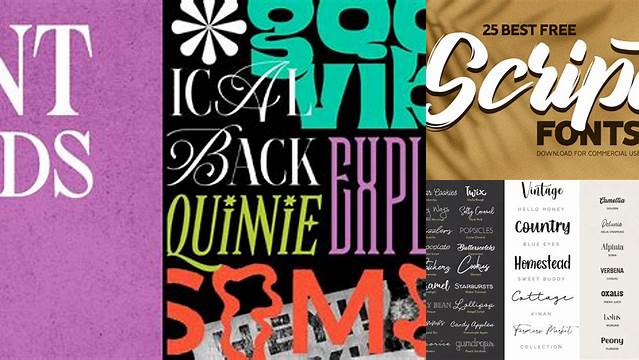
Top Free Fonts To Download In 2026
Alright, font fanatics and design dynamos, get ready! We're diving headfirst into the world of typography and exploring the best font 2026 free download options that will be gracing screens and pages in the coming year. Finding the right font is like finding the perfect outfit – it can completely transform your look! Whether you're a seasoned designer, a budding blogger, or just someone who loves a good typeface, this guide will be your ultimate resource for all things font-related. We'll explore a diverse range of fonts, from sleek modern sans-serifs to elegant vintage serifs, ensuring you have the perfect tool for every project. So, grab your favorite beverage, settle in, and let's embark on this typographic adventure together. The best font 2026 free download landscape is constantly evolving, with new and exciting fonts emerging all the time. This guide will be your compass, helping you navigate the ever-changing world of fonts and find the perfect ones to elevate your designs. We'll also discuss the importance of licensing, font pairing, and how to stay ahead of the curve in the world of typography. Because let's be real, a well-chosen font can make or break a design, and we want to make sure you're always on top of your game. So, let's get started and discover the fonts that will be making waves in 2026!
H2: Unleashing the Power of Sans-Serif Fonts in 2026
Alright, guys, let's kick things off with the unsung heroes of the font world: sans-serif fonts. These guys are the workhorses of the typography world, known for their clean lines and versatility. For best font 2026 free download options, expect them to dominate the digital space. They are the perfect choice for everything from websites and apps to presentations and reports. Their readability and modern aesthetic make them incredibly popular in the digital realm, and we can expect to see even more innovative designs cropping up in 2026. When considering a best font 2026 free download for a sans-serif, think about the overall mood you want to convey. Do you want something sleek and minimalist, or something more playful and approachable? Some popular sans-serif styles to watch out for include geometric fonts with their precise shapes, humanist fonts that are a bit more organic and friendly, and grotesque fonts that have a slightly bolder and more industrial feel. Keep your eye out for fonts that offer a wide range of weights and styles, as this will give you maximum flexibility in your designs. Consider exploring the newest variations of popular fonts. Several established foundries may also release new weights or expanded character sets. This means existing fonts may see a resurgence in popularity as they cater to the evolving needs of designers. Remember that the best sans-serif fonts are those that are both visually appealing and functional, ensuring your message is delivered clearly and effectively. Remember that font pairing is also essential. The ability to pair sans-serif fonts with other typefaces is going to be another trend. You can also use these fonts for headlines, subheadings, and body text. The best sans-serif fonts can also be paired with serif fonts for a dynamic and visually interesting design. Be sure to explore different combinations and see what works best for your specific needs.
H3: Exploring Modern Sans-Serif Font Trends
Let's dive deeper, shall we? Modern sans-serif fonts are all about clean lines, geometric shapes, and a touch of sophistication. For best font 2026 free download options, modern sans-serifs are expected to continue their reign in the design world. Think about the kind of tech companies that use these fonts – they want to convey a sense of innovation and cutting-edge technology. These fonts are perfect for websites, apps, and branding materials. In 2026, expect to see an even greater emphasis on minimalism and simplicity. Fonts with a high x-height (the height of lowercase letters) will continue to be popular as they improve readability, especially on smaller screens. The trend toward monolinear designs (fonts with consistent stroke weight) will also continue, offering a sleek and modern look. Another key trend is the use of variable fonts. These are single font files that can adapt to different weights, widths, and styles, providing incredible flexibility. Variable fonts allow for seamless transitions between different designs and also offer some performance advantages. Remember that the goal is not only to find beautiful fonts but also to choose those that are highly functional. This means they must be readable on a variety of devices and screen sizes. This means that designers who are looking for the best font 2026 free download options will seek typefaces that are adaptable to a wide range of applications. Many font foundries are also experimenting with different weights and styles, such as italics and bold versions. This increases the flexibility and design capabilities of the font. When choosing a modern sans-serif font, keep the project's overall tone and audience in mind. A font that is perfect for a tech startup may not be suitable for a wedding invitation. Pay attention to the kerning (the spacing between letters) and the overall proportions of the font. These factors can greatly affect readability. Embrace these trends, and you'll be well on your way to creating stunning and effective designs.
H2: Unveiling the Charm of Serif Fonts for 2026
Alright, let's talk about the timeless elegance of serif fonts. These fonts, with their little flourishes at the ends of strokes, bring a touch of sophistication and classic charm to any design. When searching for the best font 2026 free download, you will definitely want to include some serif options. Serif fonts are especially popular for print materials, long-form content, and branding that needs a touch of traditional elegance. Serif fonts add a sense of authority and trustworthiness. If you're looking to create a sense of heritage or prestige, a serif font is your go-to choice. For 2026, we can expect to see both classic and modern takes on serif fonts. The classic serifs, like Times New Roman and Garamond, will continue to be used for their readability and timeless appeal, especially in longer blocks of text. However, keep an eye out for updated versions of these classics with improved readability and modern touches. There will also be a surge of modern serifs, with clean lines and subtle serifs that offer a contemporary twist. These fonts blend the traditional feel of serifs with a modern aesthetic. These newer serifs are great for both headlines and body text. They add a sophisticated feel without being overly formal. The best serif fonts provide a balance of readability and elegance. Look for fonts that are optimized for both print and digital use, as this is going to be more crucial. The goal is always to ensure the font is easily readable on a variety of devices. Consider the x-height, the stroke weight, and the overall spacing of the letters. These factors can greatly affect readability. When choosing a serif font, think about how it complements the other design elements. Does it work well with the images and colors you're using? Does the font convey the right message? Explore different weights and styles to find the perfect fit for your project. These different variations can enhance the appeal of the design. The options for the best font 2026 free download are plentiful. Remember, the goal is to use fonts to elevate your designs and grab the attention of the audience.
H3: The Resurgence of Classic Serif Fonts
Let's dive a little deeper into the world of classic serif fonts. These fonts are the ones that have stood the test of time, appearing in books, magazines, and websites for centuries. For the best font 2026 free download searches, classic serifs are still highly relevant. Their elegant and readable qualities make them ideal for long-form content and branding projects that need a touch of sophistication. Classic serifs have a way of conveying a sense of trust and authority, so they are perfect for academic writing, financial reports, and any project that wants to appear credible. For 2026, expect to see these classic serifs continue to be used, but perhaps with some modern updates. Many foundries are now offering digital versions of these classic fonts with improved kerning and readability, making them more suitable for digital screens. The best part about these classic fonts is that they are often available for free, making them excellent candidates for best font 2026 free download options. Look for well-known serifs like Garamond, Baskerville, and Times New Roman. These fonts have a timeless appeal. Consider the weight, the contrast, and the overall structure of each font. These factors can dramatically affect the look and feel of your design. Classic serifs are also known for their legibility, which is crucial for long blocks of text. They can also create a sophisticated look. When choosing a classic serif, think about your audience and the message you want to communicate. Does the font match your brand's personality? Does it work well with the other design elements? Remember, even classic fonts can be used in innovative and modern ways. Consider pairing them with modern sans-serifs to create visual interest. You can also experiment with different colors and layouts to give these fonts a contemporary edge. With these options, you will surely find the best option for the best font 2026 free download and get creative with your project.
H2: Exploring the World of Display Fonts for 2026
Okay, let's get into the fun stuff! Display fonts are all about making a statement. These fonts are designed to grab attention, and they're perfect for headlines, titles, and any design element that needs to stand out. If you are looking for the best font 2026 free download, display fonts are going to be what you are searching for. Display fonts are bold, stylish, and designed for visual impact. These fonts are not always suitable for large blocks of text because they can be harder to read. Display fonts are designed to be seen, not read, so they are a great choice for headings and titles. We can expect to see a wide variety of display fonts in 2026, ranging from playful and quirky to elegant and sophisticated. Think about the design you're creating, then choose a display font that enhances your message. Keep an eye out for fonts that offer a unique personality. In 2026, expect to see fonts that experiment with different shapes, textures, and effects. Display fonts are a fantastic way to add character and personality to your designs. From hand-drawn lettering to bold geometric shapes, the options are endless. Display fonts offer so many variations. Consider the message you're trying to convey. Is it playful, serious, or something in between? Choose a display font that matches your message and overall design aesthetic. Consider how well the font will work with your other design elements, such as images and colors. The best font 2026 free download options are out there, and you will be able to use the font to make a lasting impression.
H3: Bold and Creative Display Font Trends
Let's get into the details of the bold and creative display font trends we can expect to see in 2026. Display fonts are all about pushing the boundaries of typography, so we can expect to see some exciting new designs. You will surely be looking for the best font 2026 free download options in these fonts. These fonts will surely be eye-catching. In 2026, we can expect to see a trend towards fonts with strong personalities. These fonts will often have unique letterforms, and they will be ideal for branding. We'll see fonts that are inspired by different cultures and art styles. Look for fonts that incorporate hand-drawn elements, textures, and experimental designs. Another trend will be the use of variable fonts. This allows designers to create dynamic and adaptable designs. Variable fonts provide a wide range of customization options, allowing for the perfect font design. When choosing a display font, think about the overall design. Does the font work well with your color scheme and the other design elements? Consider the readability of the font. While display fonts are meant to be eye-catching, it is important that they are still legible. The goal is to find the perfect font that works for your design. Ensure you have the best font 2026 free download options at your fingertips. So many fonts will be accessible in 2026. Think outside of the box. Display fonts can be used in both print and digital media. Display fonts can give you a strong visual impact. If you get creative, you can achieve a design that's sure to capture the audience's attention.
H2: The Importance of Font Licensing and Usage Rights
Okay, guys, let's talk about something super important: font licensing and usage rights. When you're searching for the best font 2026 free download, it's crucial to understand the legal side of things. Font licensing determines how you can use a font. Knowing this will save you from any legal issues later on. Always check the font's license before you start using it. Most free fonts are available under a specific license, such as the Open Font License (OFL) or a Creative Commons license. These licenses usually allow for commercial use, but always check the details. Some fonts may be free for personal use only, which means you can't use them for any commercial projects. When downloading any font, always read the license agreement carefully. The license details the limitations and usage rights. These can include restrictions on the number of users, the types of projects, or the use of the font for logos or trademarks. Understand what is and isn't allowed. Pay attention to the license terms. Ensure you are aware of the restrictions for the font. For the best font 2026 free download options, always verify the licenses. Ensure that you are complying with the terms of the font license. Failure to do so can lead to legal issues, so always stay informed. This will help you avoid copyright infringement. Always respect the work of the font designers and follow the license guidelines.
H3: Navigating Free Font Licenses for Commercial Use
Alright, let's dive deeper into navigating free font licenses, especially when it comes to commercial use. If you're running a business or creating designs for clients, you need to make sure you're using fonts legally. Finding the best font 2026 free download for commercial use requires careful attention to the licensing terms. Many free fonts are available under the Open Font License (OFL), which is a very flexible license that allows for commercial use, modification, and redistribution. When a font is under the OFL, you're usually good to go for most commercial projects, but always read the fine print to be certain. However, some free fonts might have different licenses, such as the SIL Open Font License. Ensure you understand the terms. This will include the use of the font in a logo, on a website, or in other promotional materials. Be extra cautious when you're downloading fonts from third-party websites. Make sure the site is reputable and that the font files are legitimate. Look for clear information about the font's license before downloading. The description should specify whether the font is free for commercial use. Always check the license before you use the font. If you're unsure, it's always better to err on the side of caution and choose a font with a clear commercial license. Remember that the best font 2026 free download for commercial use has clear licensing. Remember, respecting the font designers' work is important. This ensures that the font designers get credit for their hard work.